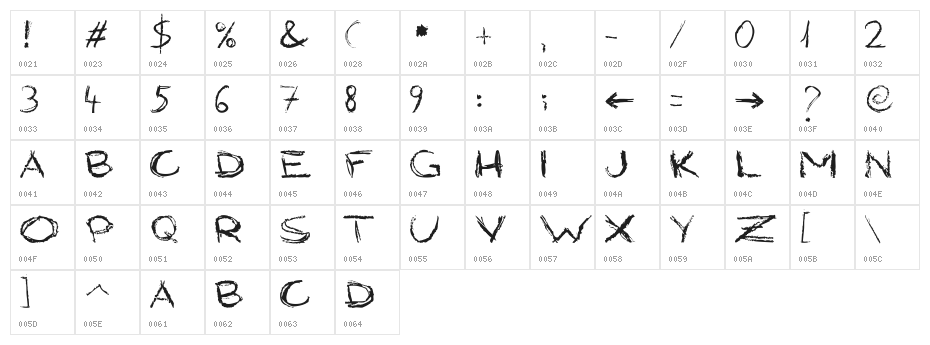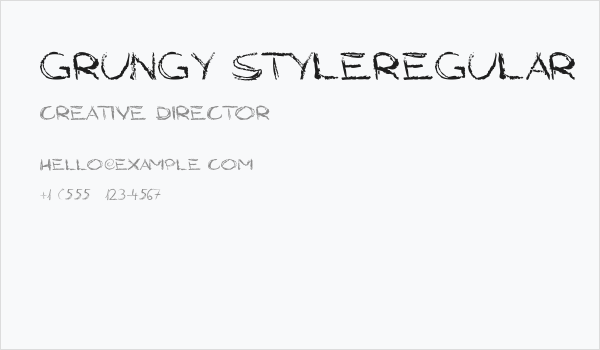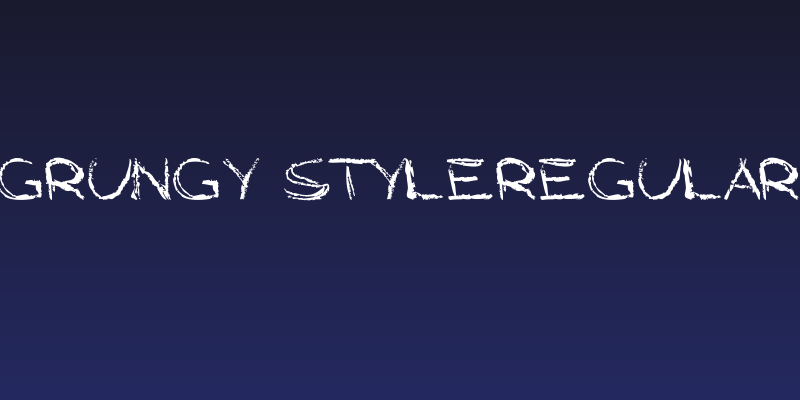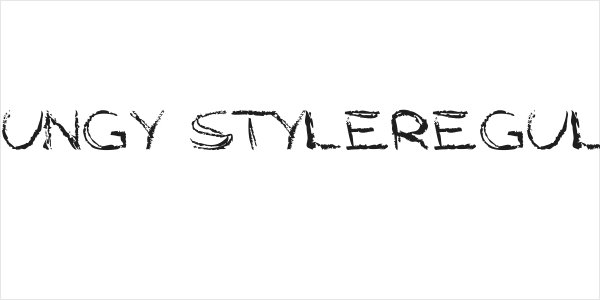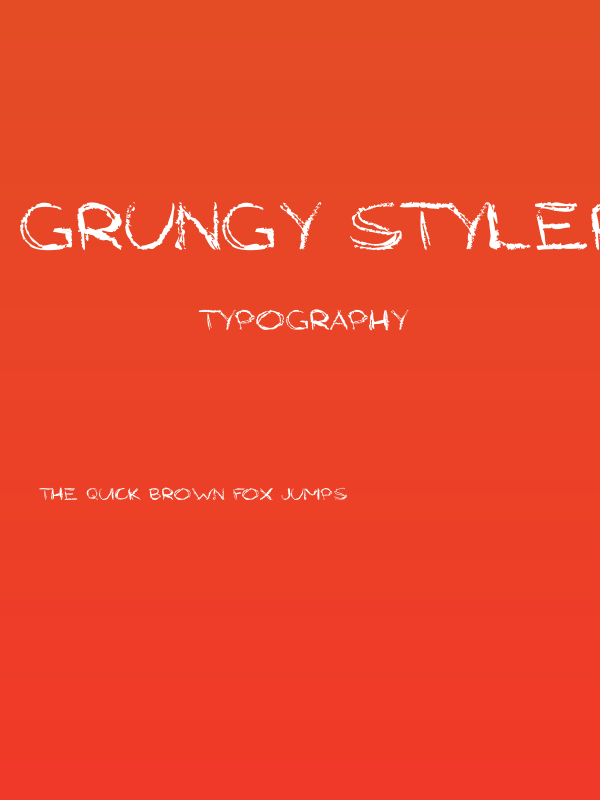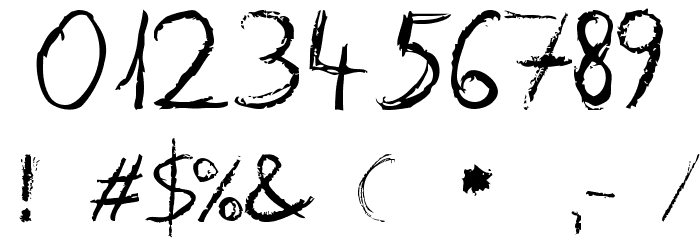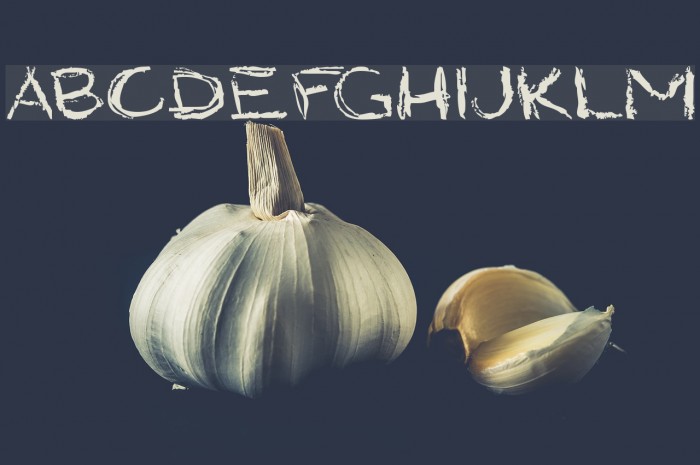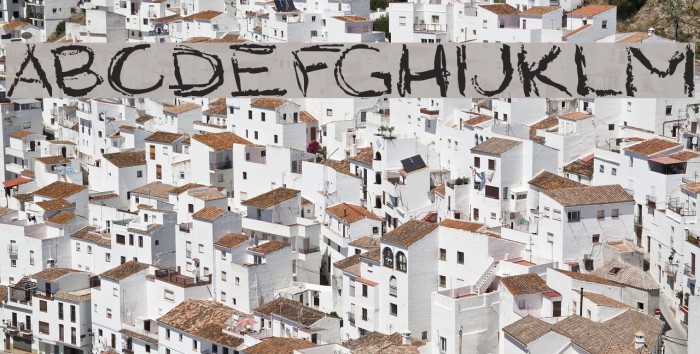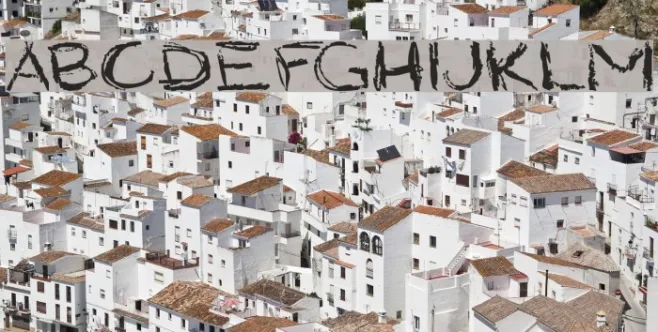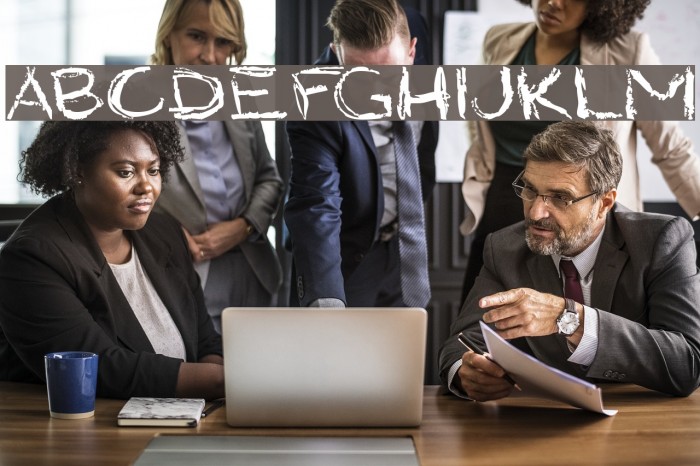
Grungy StyleRegular Font
Grungy StyleRegular Description
This font exhibits a grungy, distressed style with rough, textured edges that give it a raw and edgy appearance. The characters are irregular and appear as if they were hand-painted with a brush, adding to the chaotic and artistic vibe. The uppercase and lowercase letters maintain a consistent style, with each character showing unique variations and imperfections. The numbers and special characters follow the same aesthetic, making the font suitable for projects that require a bold, unconventional look. Its overall appearance is striking and memorable, ideal for designs that aim to stand out.
| Overall Style | Grunge, Artistic, Edgy |
| Proposed Projects | Album covers, streetwear branding, graffiti art, posters, and edgy marketing materials. |